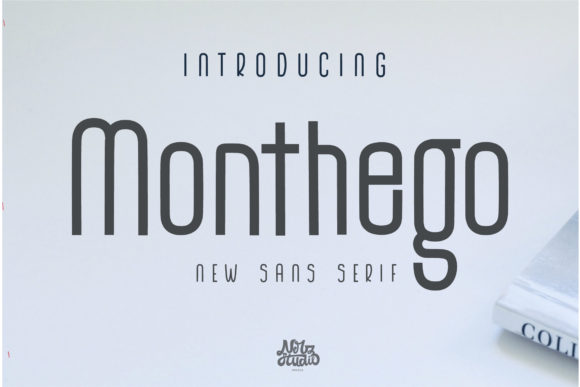
Immerse yourself in the enchanting world of The Monthego Font, a symphony of modern style and timeless elegance. This captivating sans serif masterpiece is the brainchild of Nerdstudio, renowned for their dedication to creating fonts that ignite inspiration.
The Monthego Font, with its graceful curves and confident strokes, is not merely a collection of characters; it is an artistic canvas that will elevate your designs to new heights. Meticulously crafted to strike a perfect balance between thin and thick, each letter exudes a sense of harmony and sophistication.
Whether you're crafting a stunning logo that demands attention or designing a website that whispers elegance, The Monthego Font is your perfect companion. Its versatility extends beyond the ordinary, adapting seamlessly to a myriad of projects. From invitations that radiate warmth to brochures that captivate with their charm, this font empowers you to weave tales that resonate with your audience.
Indulge in the exquisite artistry of The Monthego Font and let your creativity flourish. It's more than just a font; it's a gateway to a world where your designs come alive with unparalleled beauty and emotional depth. Embark on your next creative adventure with The Monthego Font, and experience the transformative power of typography.